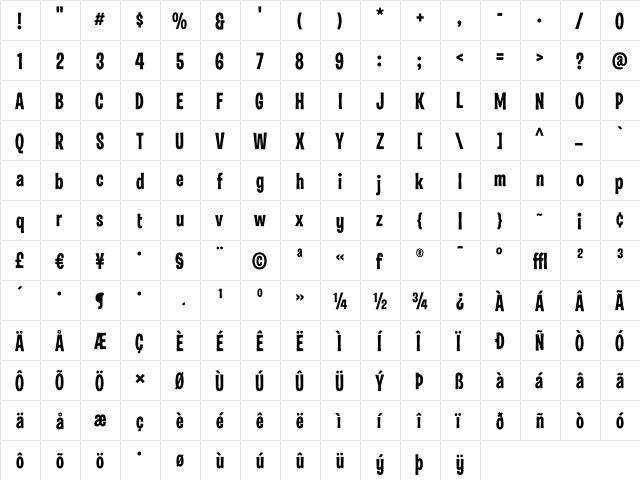
LasVegas Jackpot
Design Context for LasVegas Typeface
LasVegas is a composed and adaptable typeface that performs quietly and consistently across a wide range of design contexts.
Pro Tip: Pair LasVegas with a font of contrasting weight or personality to build a more expressive typographic hierarchy.